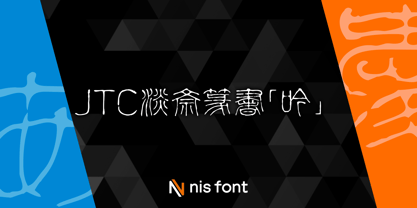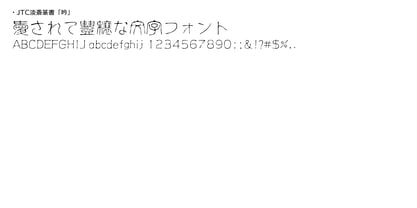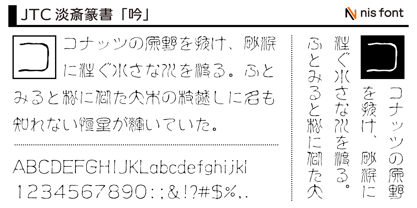
OT-NIS_GIN
The OT-NIS_GIN Font Family was designed by and published by NIS Fonts. OT-NIS_GIN contains 1 styles. More about this family
It can be used not only for seals and inkan, but also for eye-catchers on websites, business cards, digital seals, and many other uses.